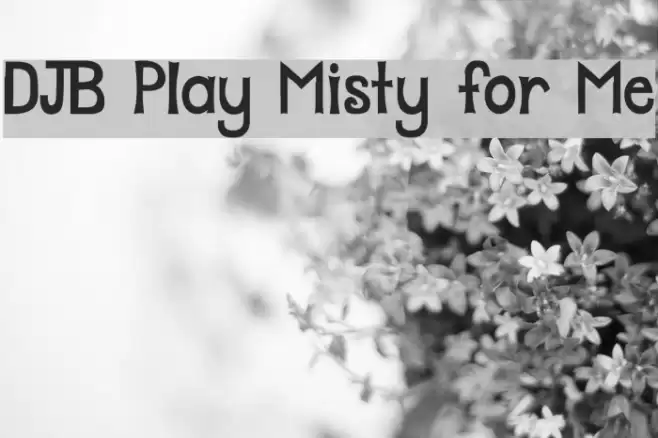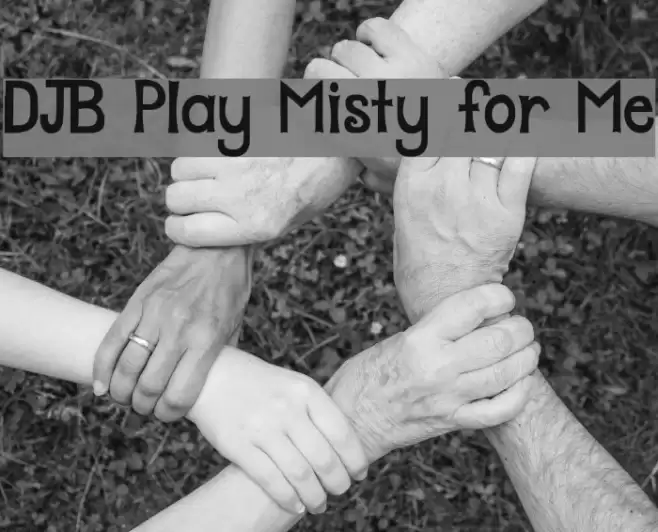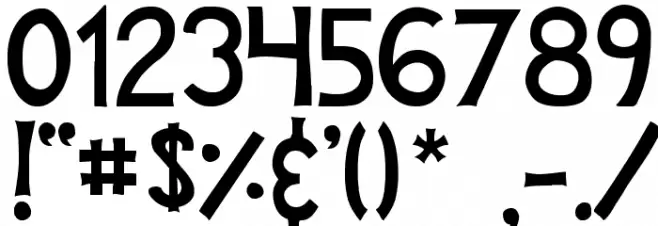
DJB Play Misty for Me Font
DJB Play Misty for Me Description
This playful and whimsical font features a hand-drawn style with a slightly irregular and quirky appearance. The letters have a casual, friendly vibe, with rounded edges and varying stroke widths that add a touch of personality. The uppercase letters are bold and prominent, while the lowercase letters maintain a consistent flow, making it suitable for informal and creative projects. The numerals and special characters are designed to match the playful aesthetic, ensuring a cohesive look across all text elements.
A playful, hand-drawn font with a whimsical and friendly style from Uncategorized fonts.
- Proposed Projects: Ideal for children's books, greeting cards, playful branding, and creative posters.
- Overall Style: Playful
- Use Case: Headlines, Logos, Informal Text